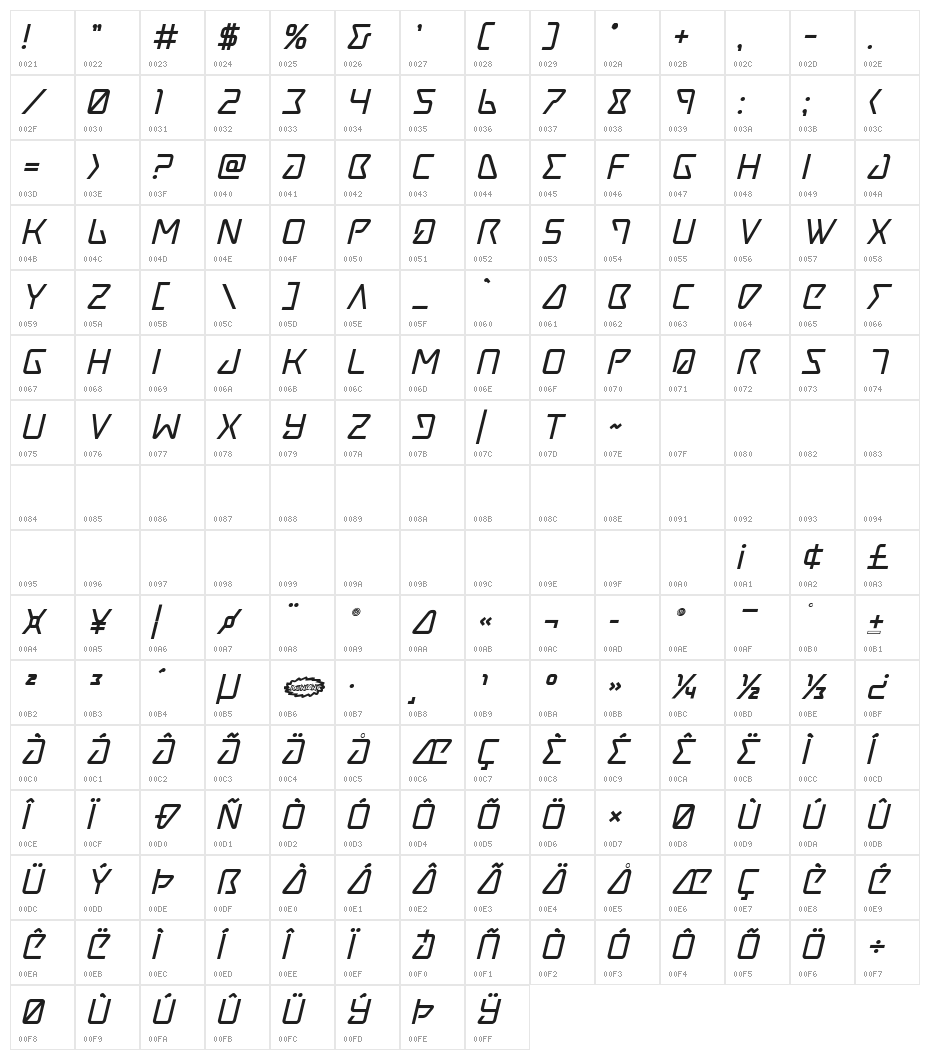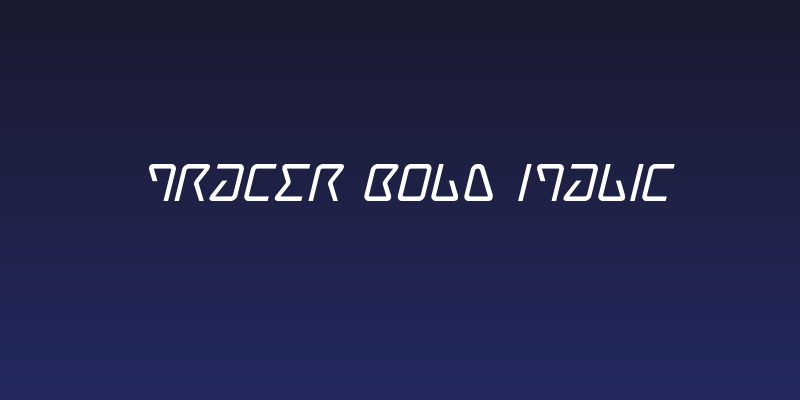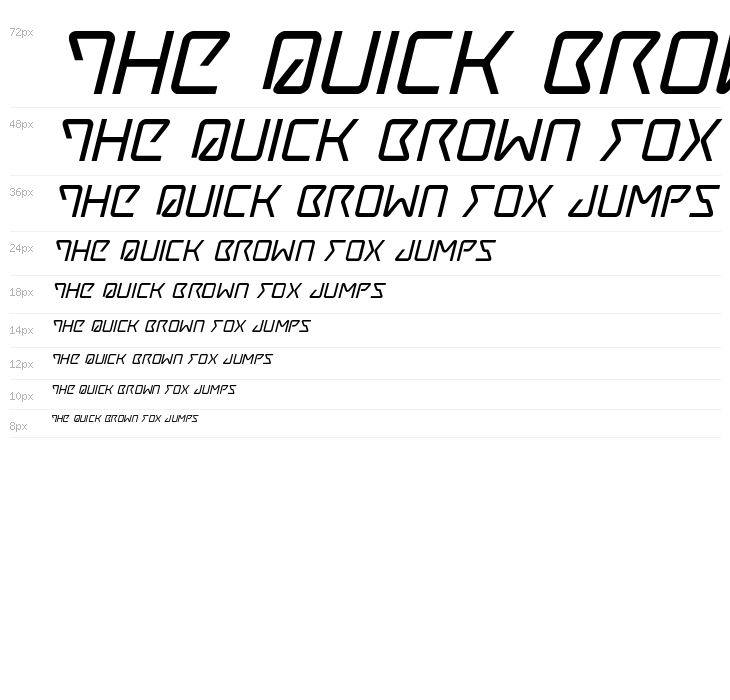
Tracer Bold Italic Font
Tracer Bold Italic Description
This font features a futuristic and angular design, characterized by its bold and italicized style. The letters are crafted with sharp edges and diagonal lines, giving it a dynamic and modern appearance. The uppercase and lowercase letters maintain a consistent geometric structure, while the numbers and special characters follow the same angular theme. The overall look is sleek and contemporary, making it suitable for projects that require a cutting-edge and tech-inspired aesthetic.